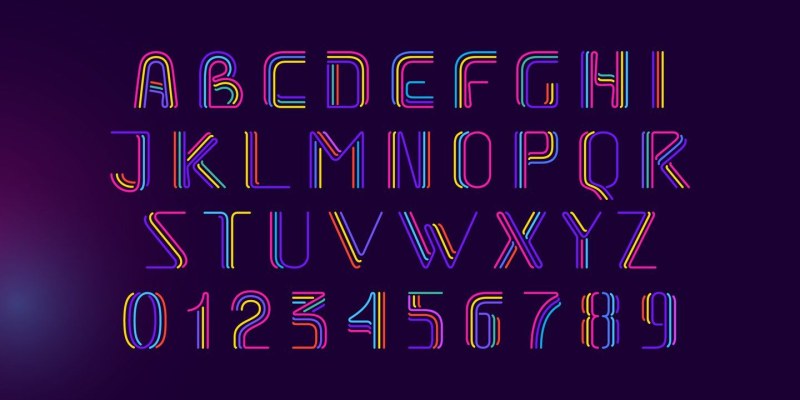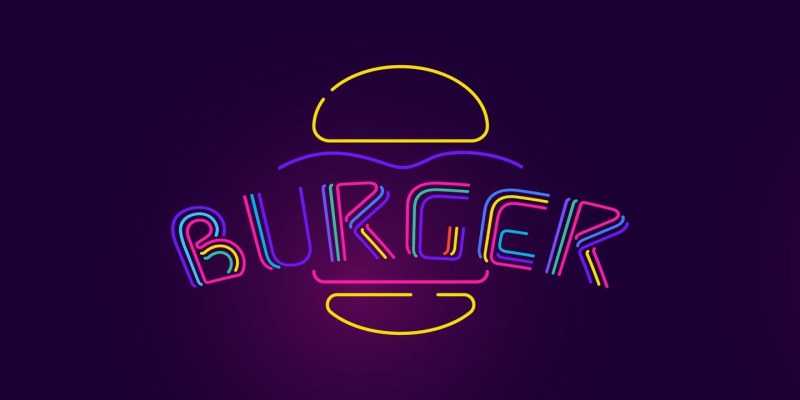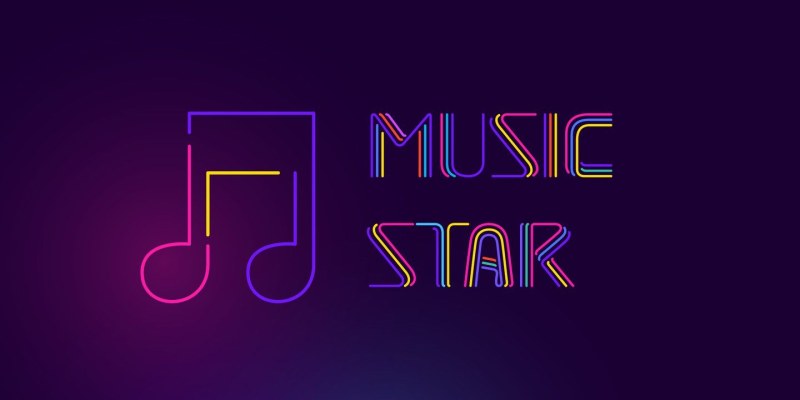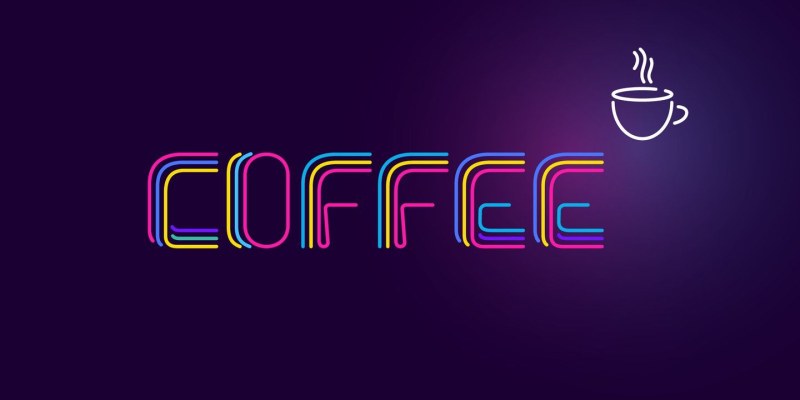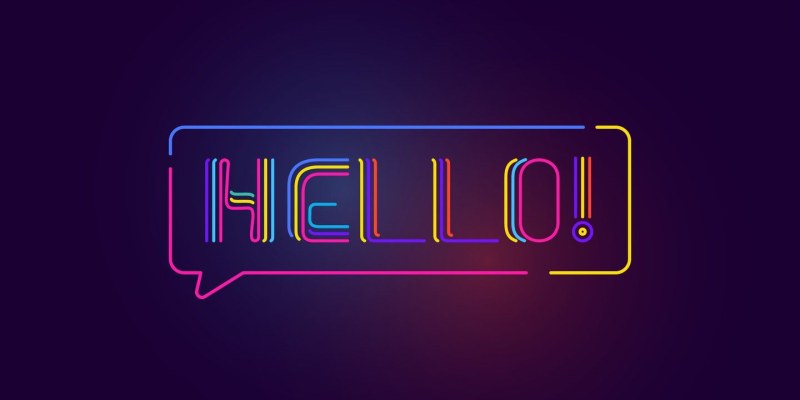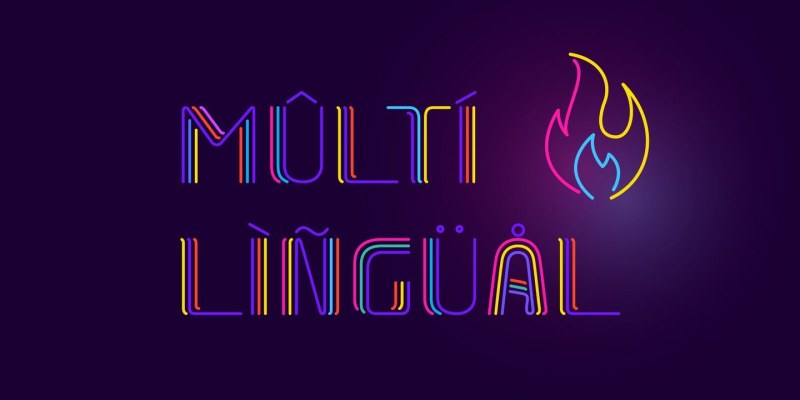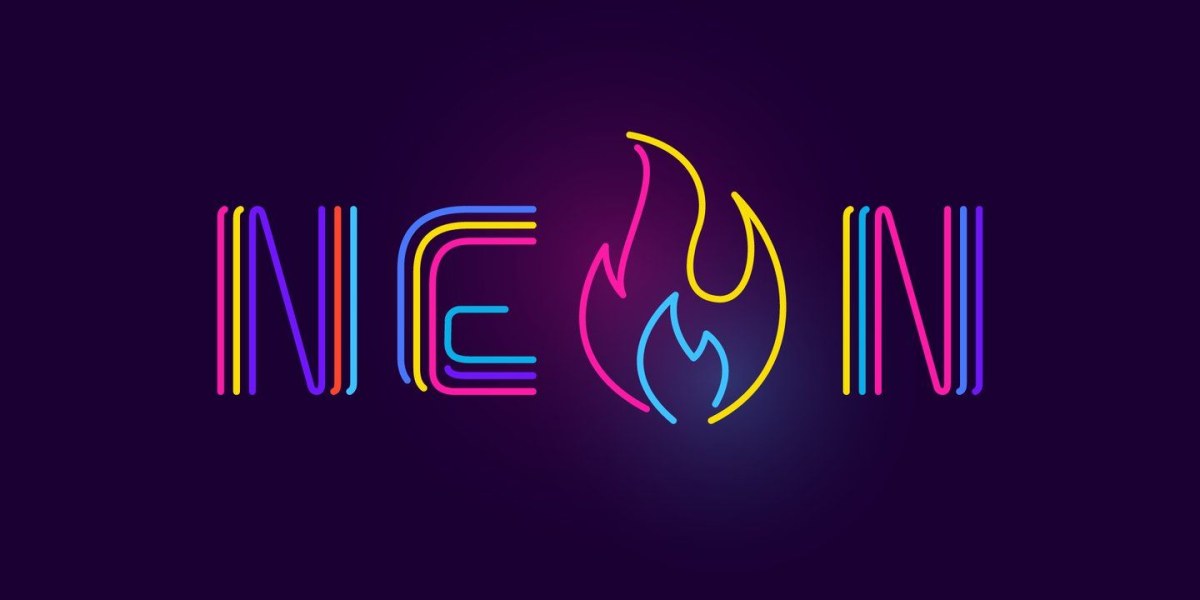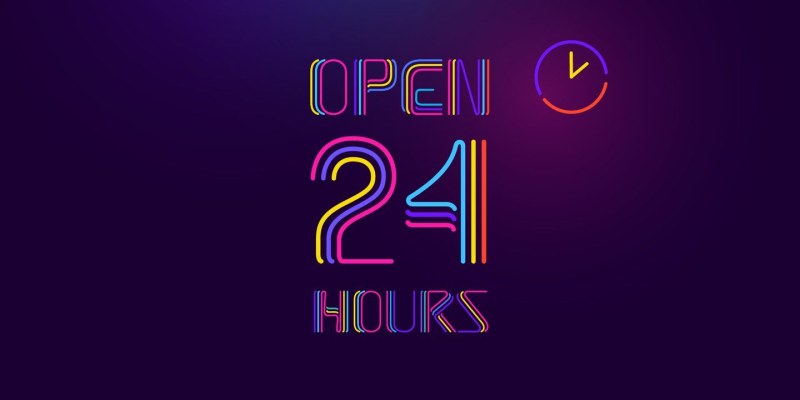
Three Neon Lines Font Family
Three Neon Lines Font is a visually striking and contemporary typeface designed to capture the essence of modern urban aesthetics with a bold and dynamic presence. This font draws inspiration from the vibrant glow of neon lights, seamlessly blending sleek lines and futuristic elements to deliver a unique typographic experience. With its clean, minimalist design, Three Neon Lines Font is versatile and well-suited for a wide range of creative applications.
* Colored and regular B&W styles
* Uppercase (lowercase glyphs are same)
* Multilingual support
* Numbers and symbols